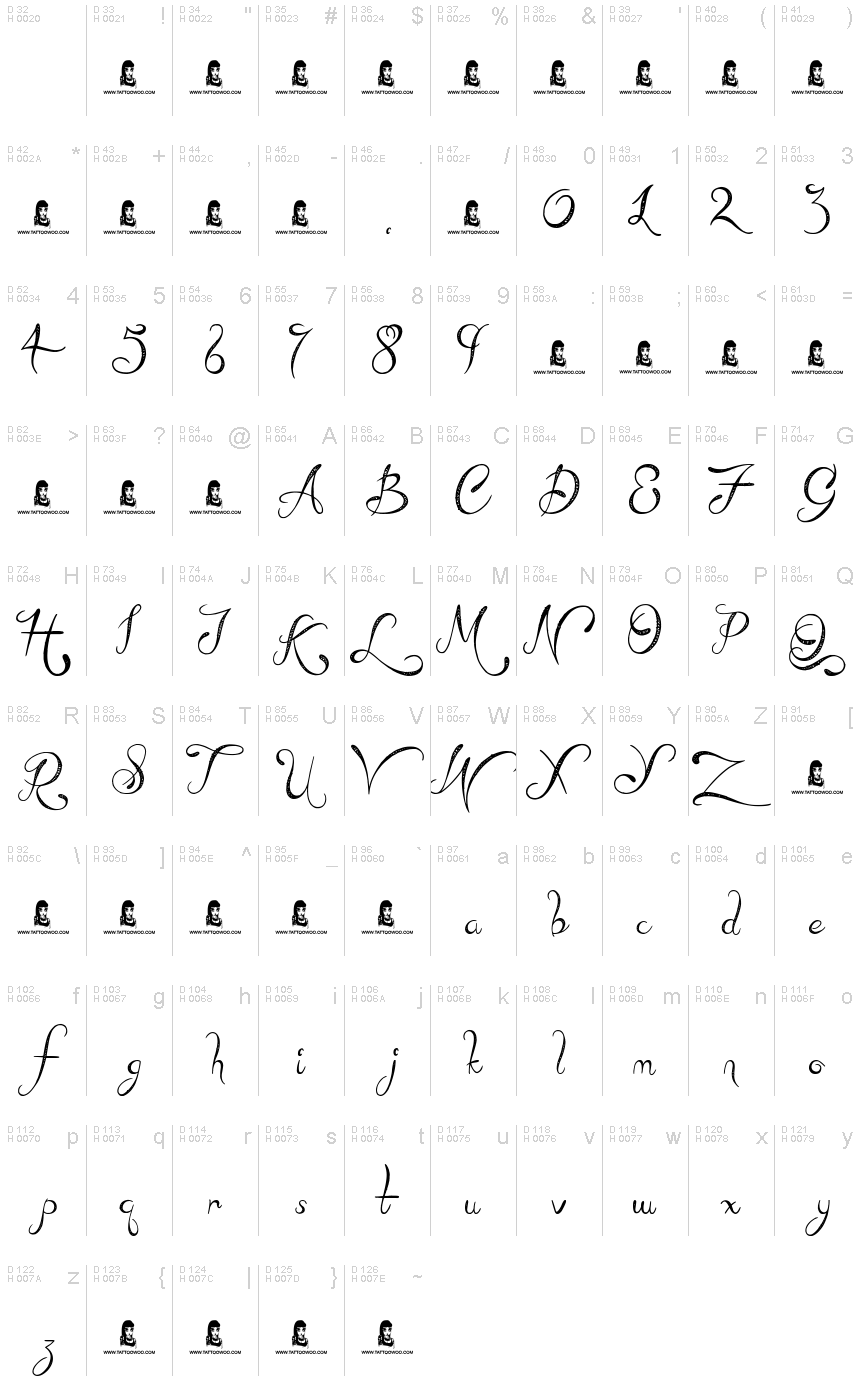
Mad Beef
Mad Beef is a captivating calligraphic font that exudes a dynamic and expressive energy. Crafted by the talented designer JSH Creates, this font showcases a striking balance between elegance and playfulness. The bold, sweeping strokes and organic curves lend a sense of movement and fluidity, while the distinct character shapes add a touch of whimsy.
This font's versatility shines through, making it an excellent choice for a wide range of design applications, from vibrant branding and packaging to enchanting event invitations and editorial layouts. The unique character of "Mad Beef" effortlessly commands attention, making it a compelling addition to any designer's typographic toolkit.